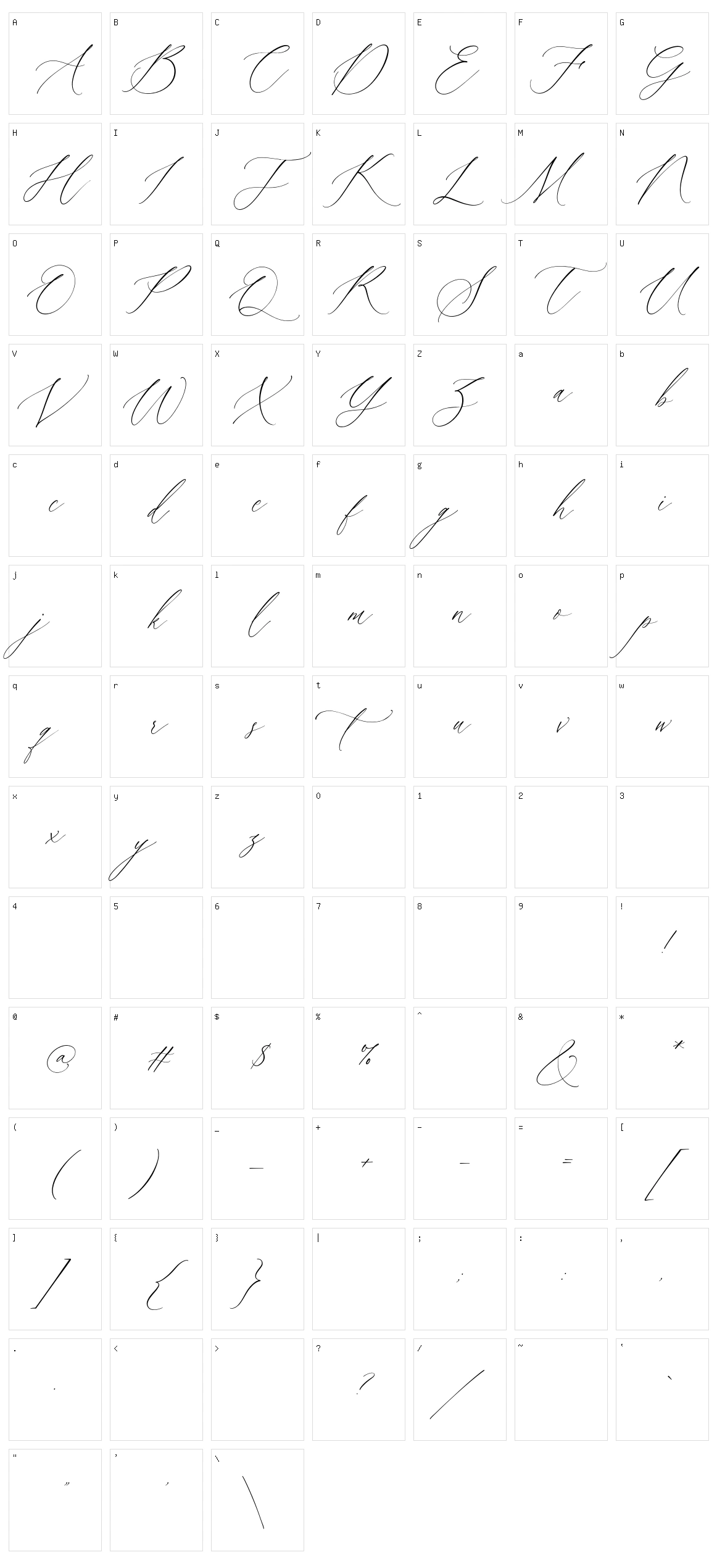
The free font Morning Georgina is carefully designed by Lunas Type, showcasing a thoughtful balance of creativity and usability and falls under the Script font style. When you download the ZIP file, it contains only 43.04 KB of font files, making it lightweight and quick to download. Please review the license details below to understand permitted usage and distribution rights. If license information is not available, we recommend using this font for personal projects only or contacting the author directly for commercial usage permissions.